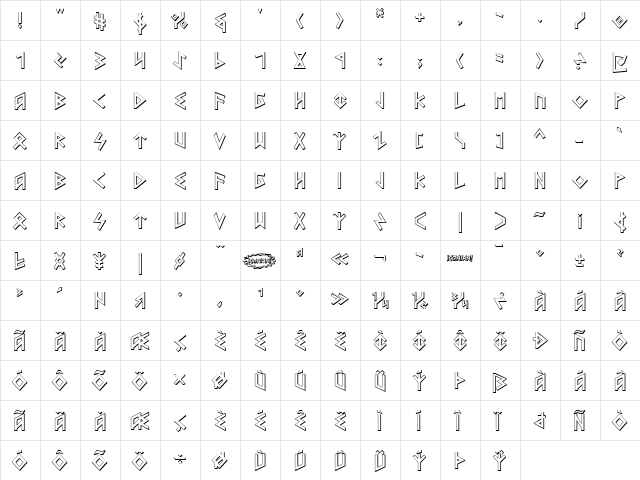
Heorot Shadow Regular
Design Context for Heorot Shadow Typeface
Heorot Shadow is built around its visual character rather than neutral utility — its distinctive forms are designed to make an impression at display sizes.
Font Pairing: Pair with a clean neutral sans-serif for body copy to let Heorot Shadow's character lead without overwhelming the composition.
Pro Tip: Use Heorot Shadow exclusively at display sizes — it was designed to be seen, not read at length. Let a neutral companion handle body copy.